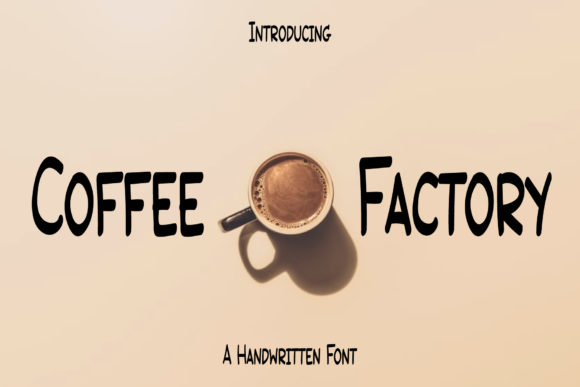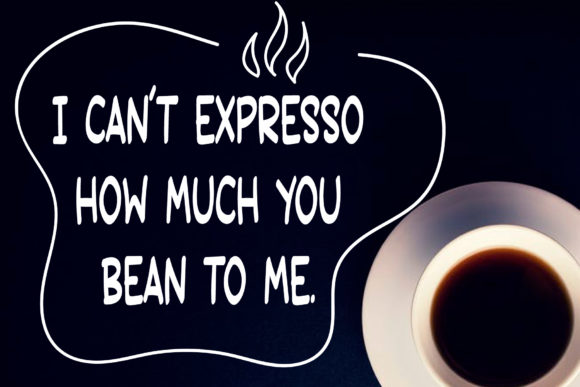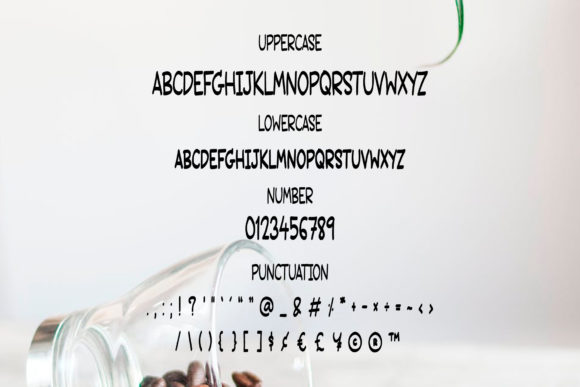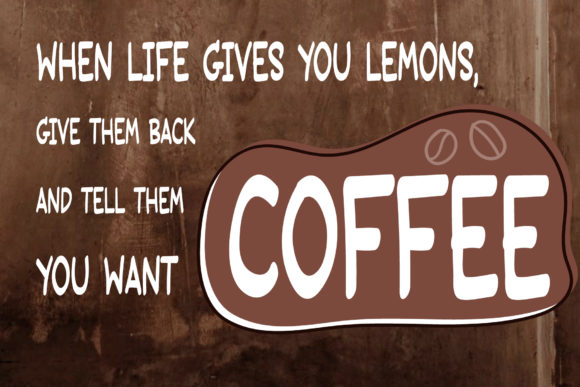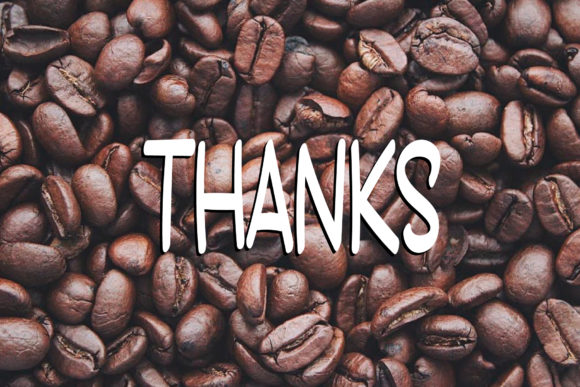
Coffee Factory Font
About Coffee Factory Font
Coffee Factory is a simple and natural handwritten font that exudes a casual and friendly vibe. With its effortless and unpretentious style, it is perfect for a wide range of designs, particularly those that require a relaxed and approachable feel.
The simplicity of Coffee Factory makes it versatile and adaptable to various design contexts. Whether you’re creating social media graphics, crafting personalized invitations, designing informal logos, or working on any other project, Coffee Factory adds a touch of warmth and authenticity.
The natural flow of the handwritten characters in Coffee Factory gives your designs a sense of ease and familiarity. It feels as if the words were written effortlessly by hand, creating a personal and genuine connection with the viewer. This quality makes it suitable for projects where you want to create a friendly and inviting atmosphere.
Coffee Factory’s readability ensures that your message is effectively conveyed. The clean and legible letterforms make it easy for your audience to understand and engage with your content. It works well as both a headline font and for body text, allowing you to maintain consistency across your design.
By adding Coffee Factory to your projects, you can infuse them with a touch of simplicity and naturalness. It brings a sense of authenticity and approachability, making your designs more relatable and appealing. Whether you’re aiming for a laid-back, informal, or friendly look, Coffee Factory complements your vision and enhances the overall aesthetic.
In summary, Coffee Factory is a simple and natural handwritten font that adds a casual and friendly touch to your designs. Its effortless style and readability make it suitable for a variety of projects, particularly those that require an informal and approachable feel. With Coffee Factory, you can confidently create designs that captivate and connect with your audience.